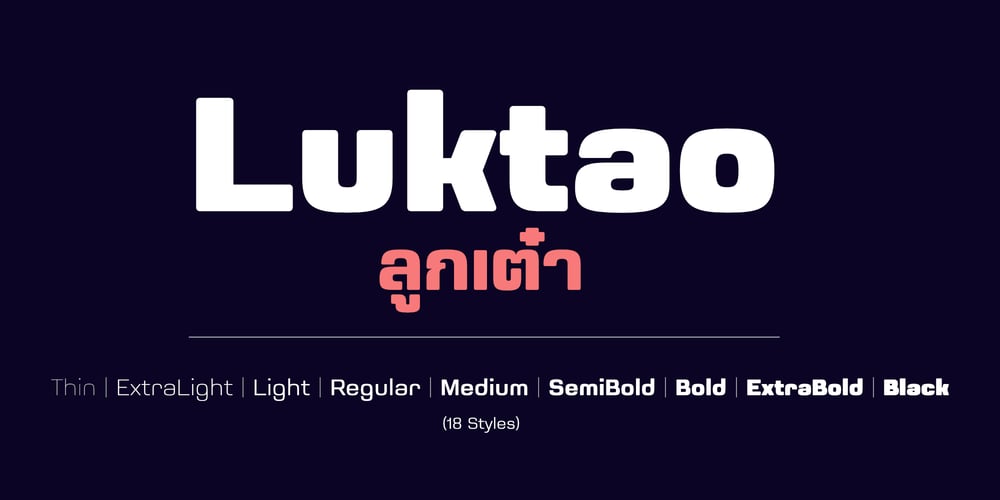
Luktao Font Family was designed by Anupap Jaichumnan and published by Jipatype. Luktao contains 18 styles and family package options. Luktao is a distinctive sans-serif typeface inspired by the geometric form of cube dice. Its design is characterized by clean, squared-off edges and uniform lines, creating a modern and structured appearance.